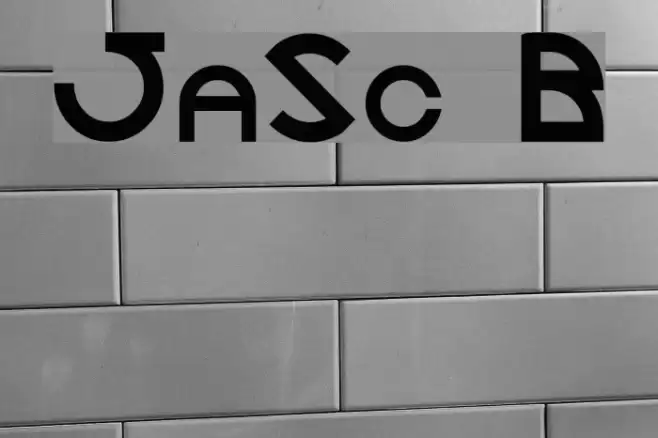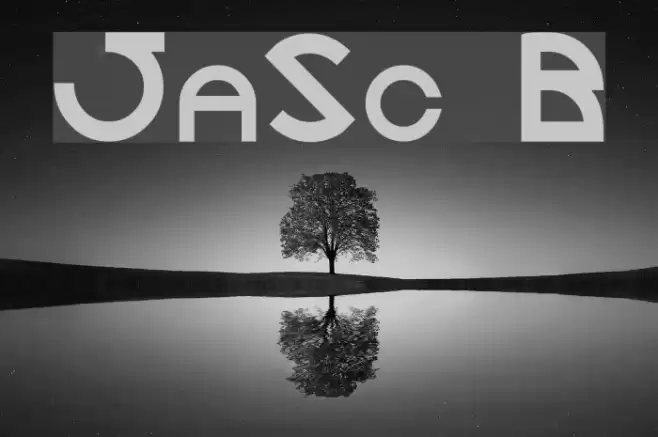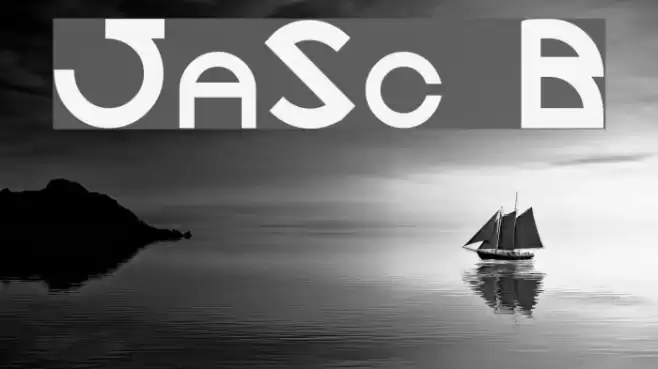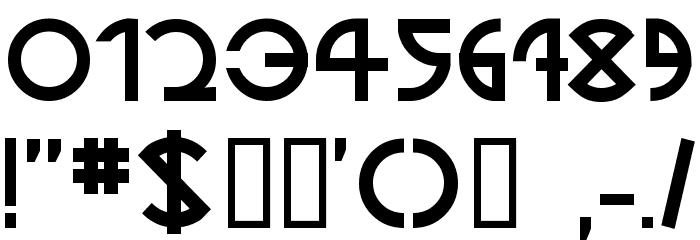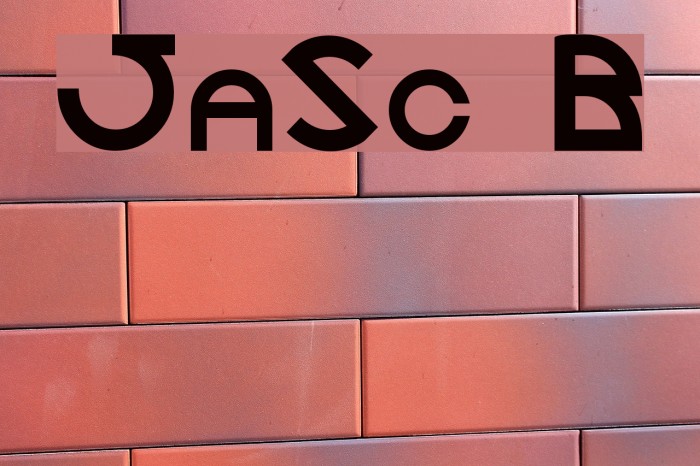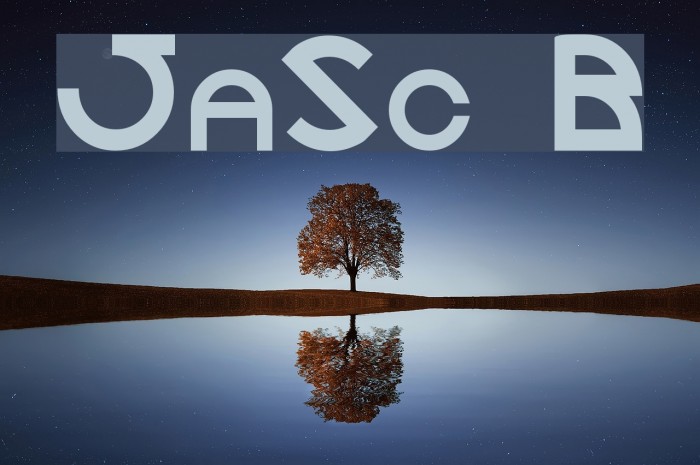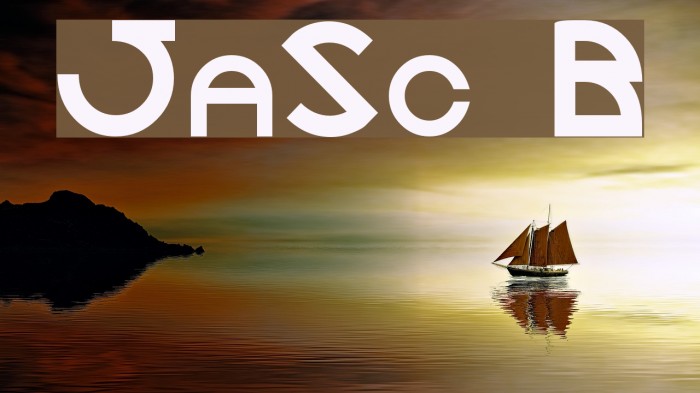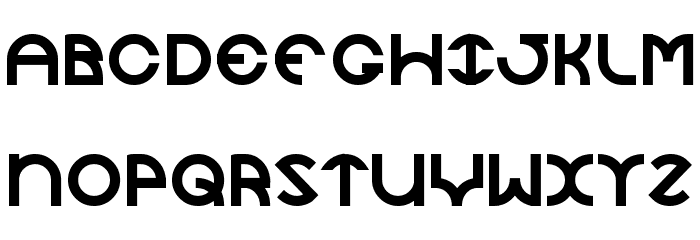
JaySetch Bold Font
JaySetch Bold Description
This font features a bold, geometric design with a futuristic and modern aesthetic. The characters are constructed with thick, uniform strokes and incorporate unique, angular shapes that create a sense of movement and dynamism. The uppercase and lowercase letters maintain a consistent style, with some characters exhibiting a distinctive cut-out effect that enhances the font's visual appeal. The numerals are equally bold and geometric, complementing the overall design. Special characters are crafted with the same attention to detail, ensuring a cohesive look across all glyphs. This font's striking appearance makes it ideal for projects that require a strong visual impact.
A bold, geometric font with a futuristic and modern design from Stencil fonts.